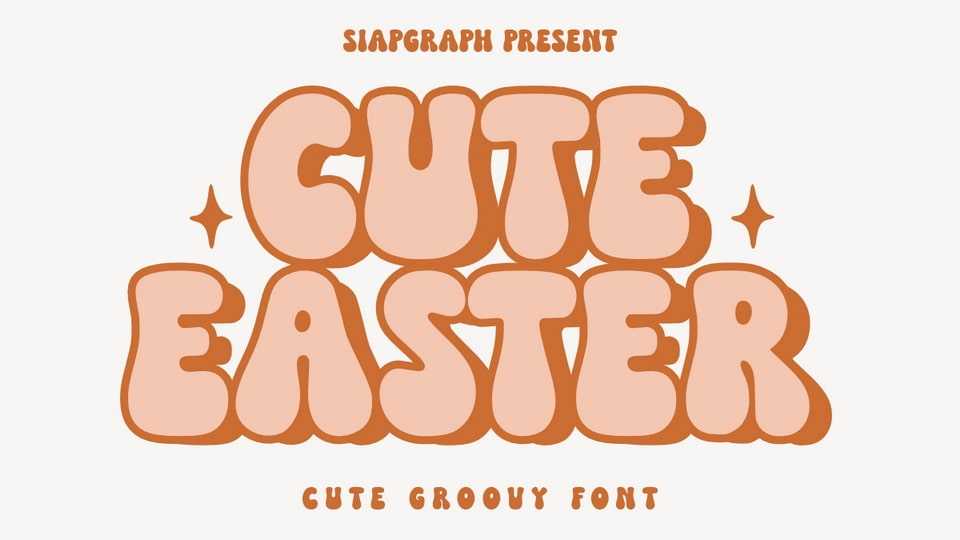
Download Cute Easter font, a playful and bubbly groovy typeface with a charming and soft aesthetic. This font features bold, rounded letterforms with a fun, puffy style that exudes warmth and joy.